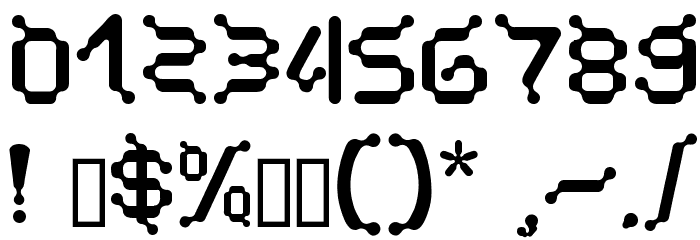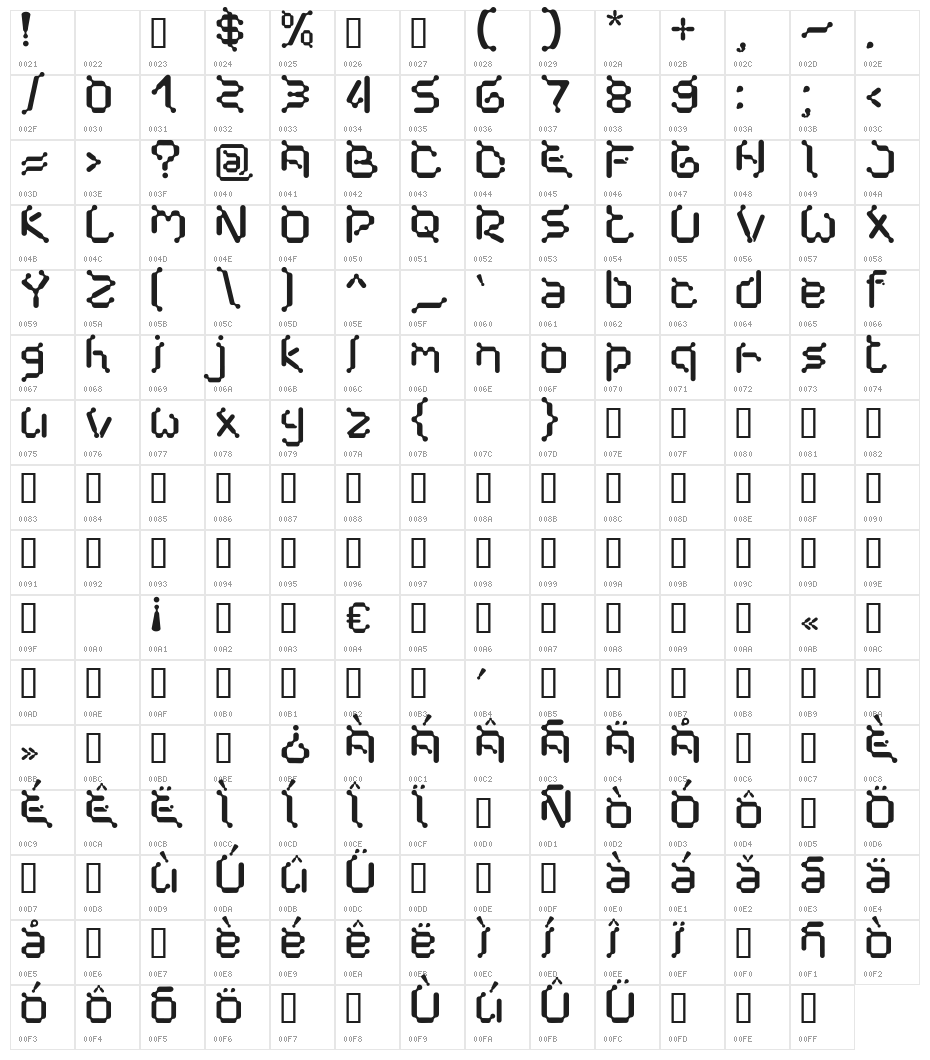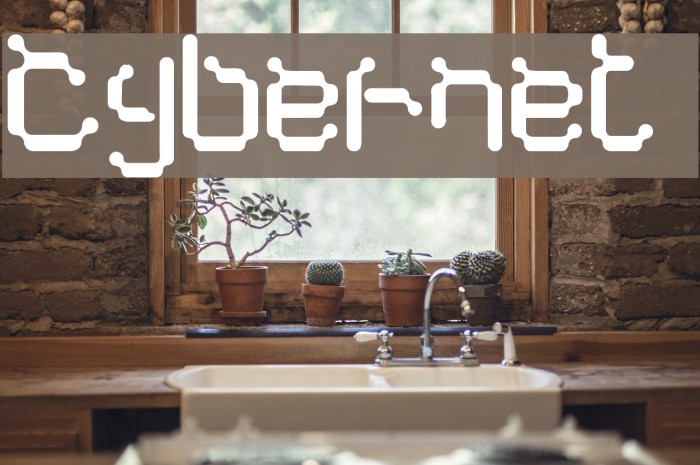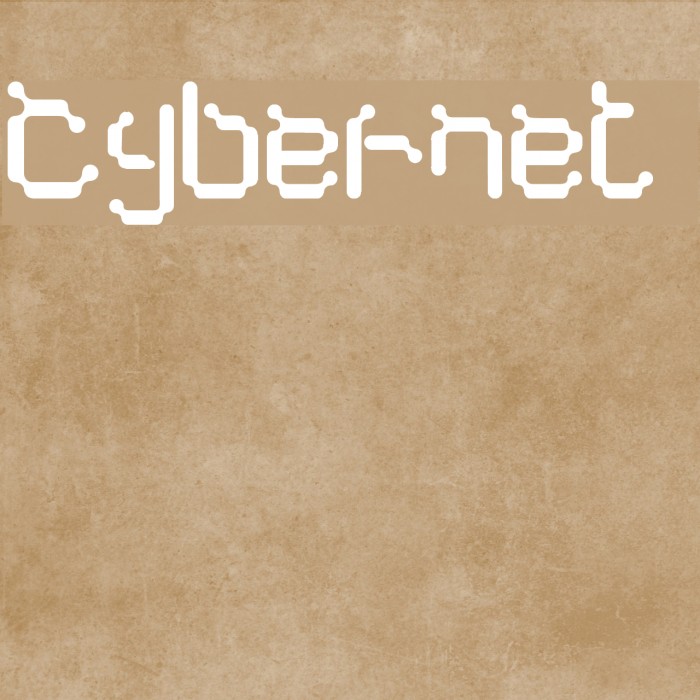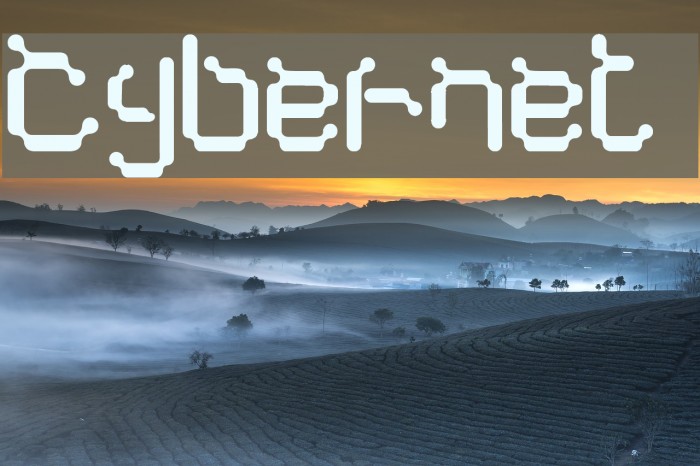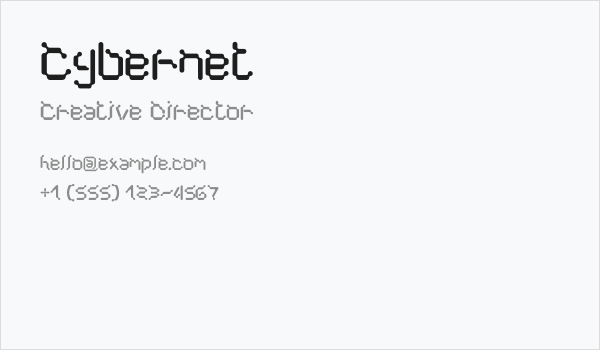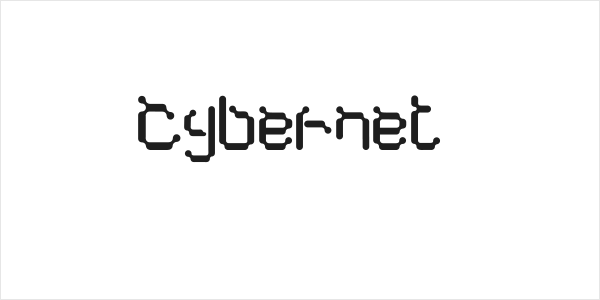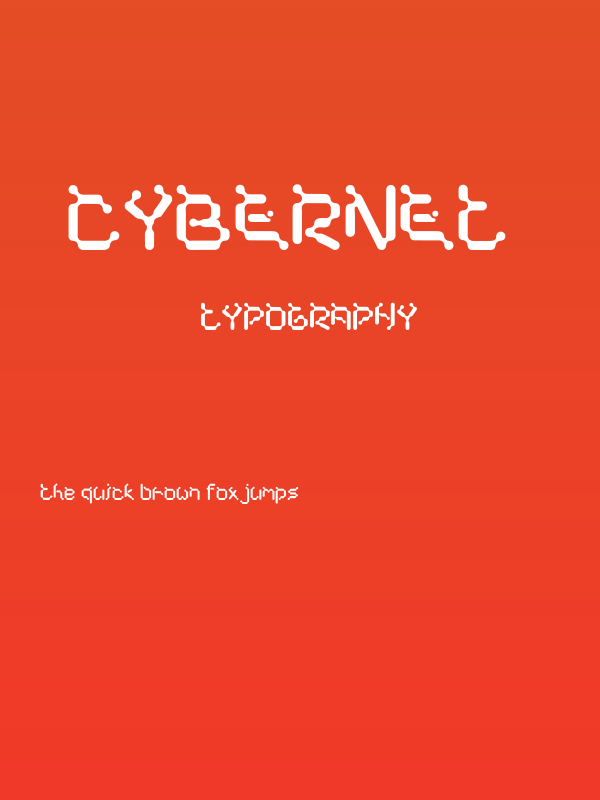
Cybernet Font
Cybernet Description
This font features a futuristic and digital aesthetic, characterized by its geometric and modular design. Each character is composed of distinct segments connected by small circular nodes, giving it a high-tech and mechanical appearance. The font maintains a consistent stroke width throughout, contributing to its uniform and structured look. The uppercase and lowercase letters share a similar style, with slight variations in height and form. Numerals and special characters are designed to match the overall theme, ensuring a cohesive visual experience. This font is ideal for projects that require a modern and technological feel.
| Proposed Projects | Ideal for tech-related branding, sci-fi movie posters, video game interfaces, and digital art projects. |